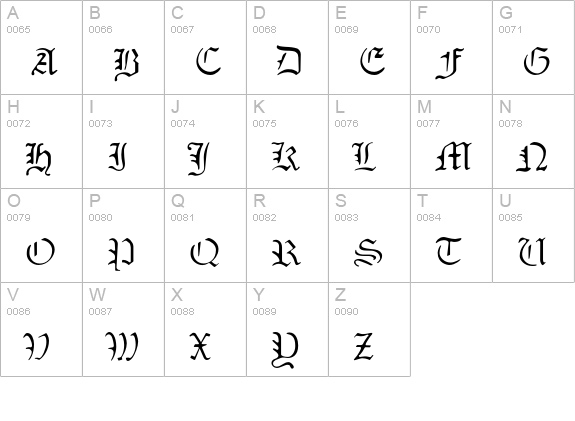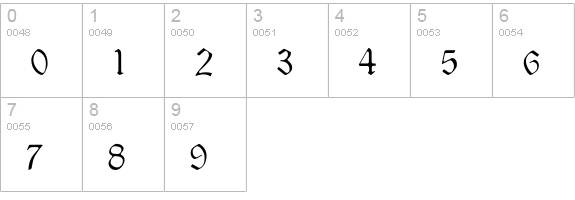
SabbathBlackRegular Font Details
SabbathBlackRegular is a strikingly bold and captivating font that commands attention with its unique blend of elegance and edginess. This font exudes a sense of power and authority, making it perfect for headlines, logos, and any design project that requires a strong visual impact. With its sharp and defined letterforms, SabbathBlackRegular stands out on any medium, whether it's in print or digital. Its clean lines and balanced proportions give it a timeless quality, making it a versatile choice for both modern and classic designs. What sets SabbathBlackRegular apart is not just its exceptional design, but also the fact that it is freely available to download at FontsMarket.com. This means that you can effortlessly incorporate this stunning font into your creative endeavors without any cost. Whether you're a professional designer looking to add a touch of sophistication to your work or an individual striving to make a statement with your personal projects, SabbathBlackRegular is the perfect font to elevate your designs to new heights. Don't miss out on this opportunity to enhance your creations with this incredible font. Download SabbathBlackRegular for free at FontsMarket.com and unlock a world of design possibilities.